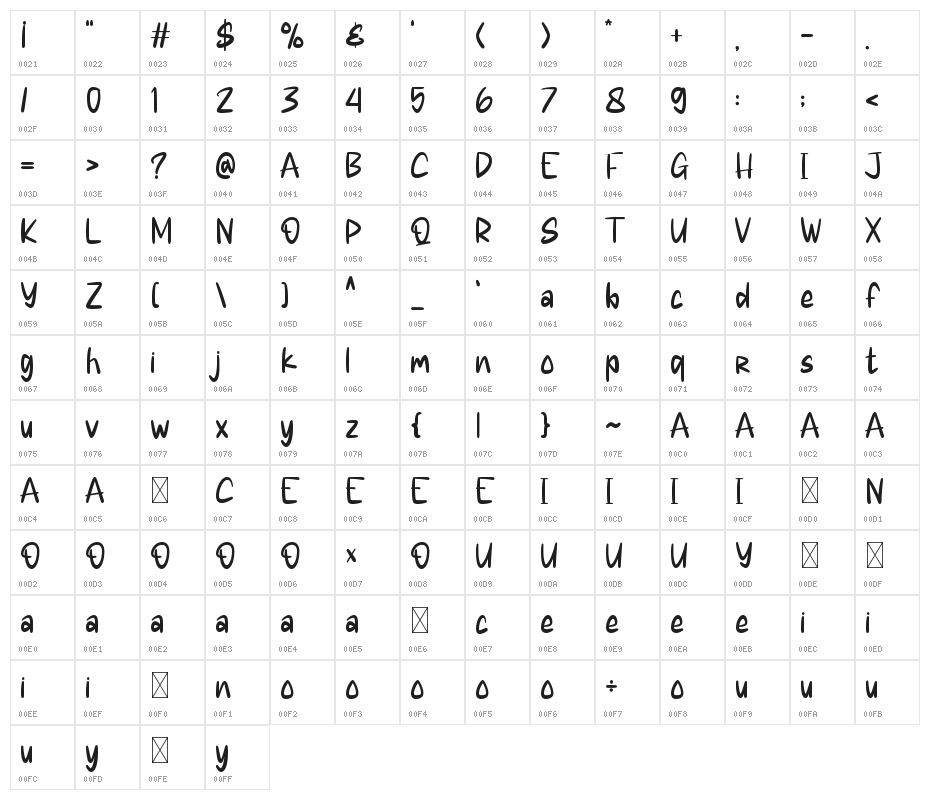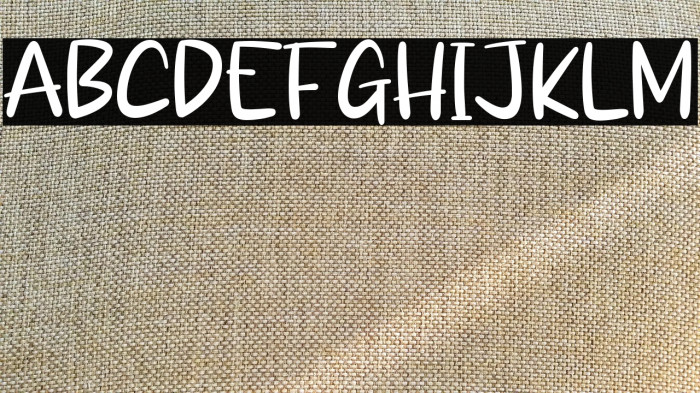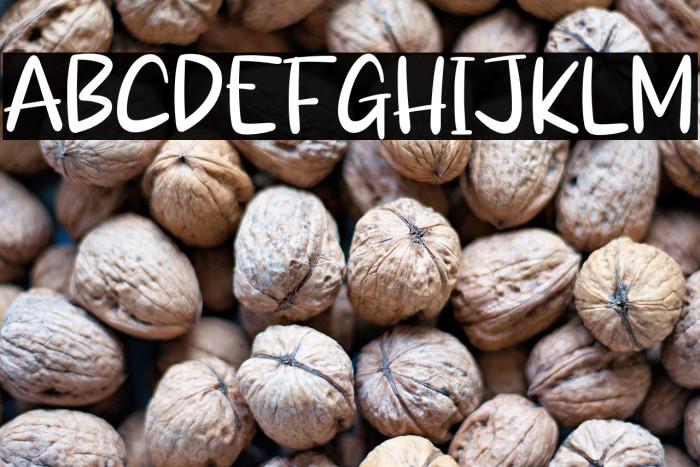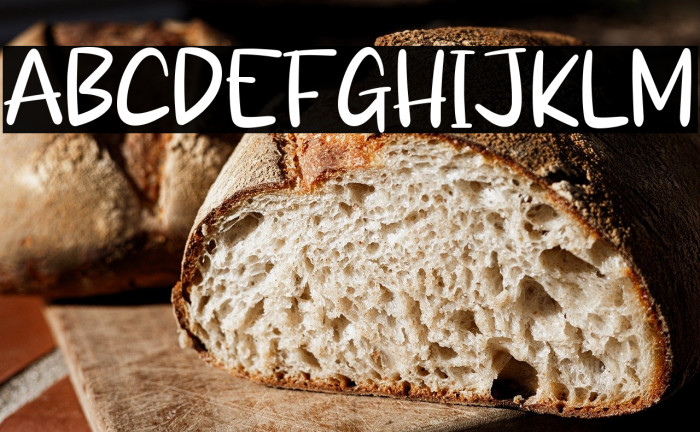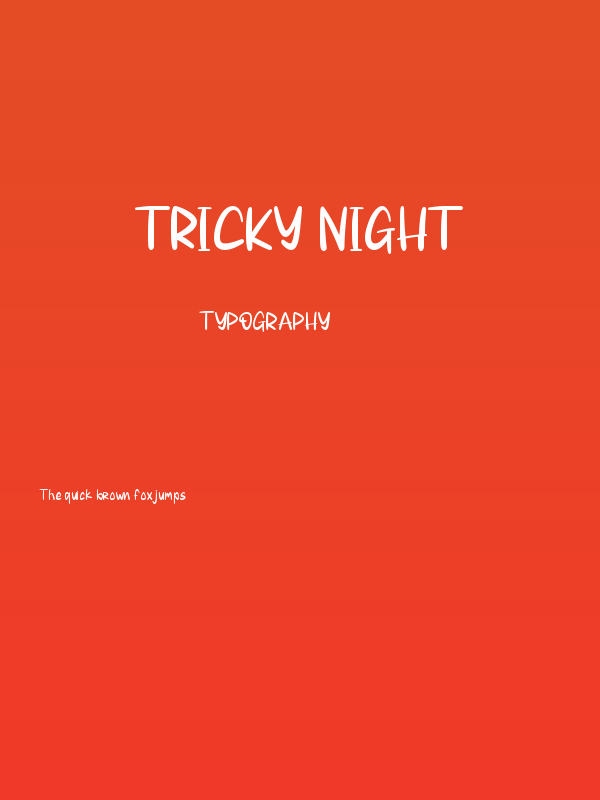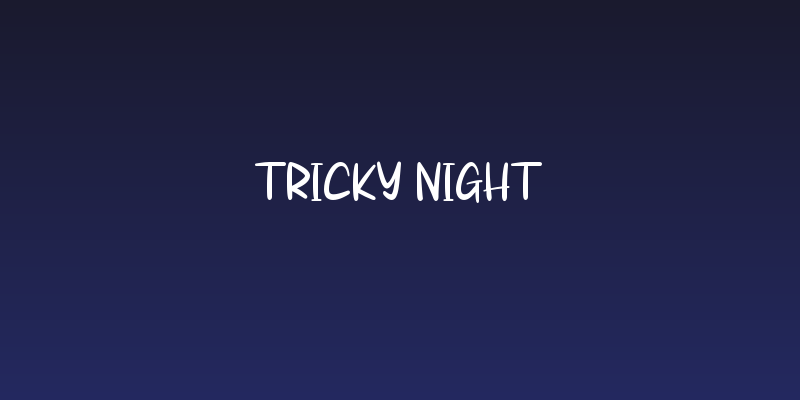
Tricky Night Font
Tricky Night Description
This playful and energetic font features a handwritten style with a casual, informal appearance. The letters are slightly slanted, giving them a dynamic and lively feel. The strokes are bold and consistent, with rounded edges that add a friendly and approachable vibe. The uppercase and lowercase letters maintain a cohesive look, while the numbers and special characters are designed to match the overall style. This font is perfect for projects that require a personal touch, such as invitations, greeting cards, or playful branding.
| Overall Style | Casual, Playful |
| Use Case | Headlines, Informal Text, Branding |
| Proposed Projects | Ideal for invitations, greeting cards, playful branding, and casual social media graphics. |